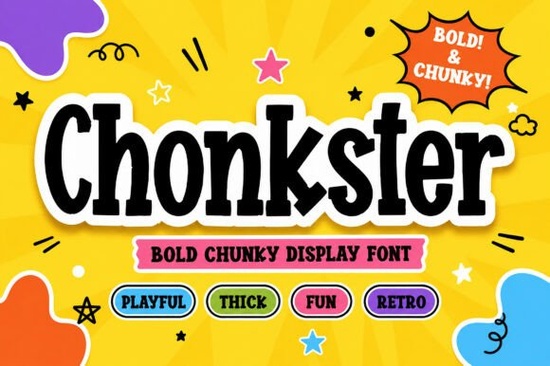
If you're looking for a bold, cheerful display font that stands out on packaging, kids’ branding, or social media graphics, Chonkster Font is a great choice. It’s not overly technical or fussy just thick, friendly letterforms with a playful cartoon energy and subtle retro vibe. Think snack boxes, toy store logos, birthday posters, or merch designs where personality matters more than precision. It’s built to be seen, not studied.
What kind of projects does Chonkster work best for?
Chonkster shines where clarity and charm go hand-in-hand. Its compact shapes and generous stroke weight hold up well at small sizes (like on stickers or tags) and pop even bigger on posters or banners. Designers who’ve used it report success with:
- Kids’ apparel and accessories (think t-shirts, tote bags, enamel pins)
- Snack or candy packaging especially brands leaning into fun, nostalgic, or slightly silly branding
- Print-on-demand greeting cards and party invitations
- Social media posts for small businesses targeting families or creative communities
- Local event flyers (farmers’ markets, library story hours, craft fairs)
It’s not meant for body text or long paragraphs this is a display font, first and foremost. But within that role, it delivers consistency and warmth without feeling generic.
How does Chonkster compare to other playful display fonts?
Like Unibelle, Chonkster has rounded terminals and a gentle bounce but Unibelle leans more elegant and hand-drawn, while Chonkster feels bolder and more grounded. If you love the chunky look but want something with extra whimsy, Candyhorn adds subtle swirls and tapered strokes, making it ideal for confectionery or birthday themes. For holiday-specific energy, Santa Sugar brings festive flair, while Spookify swaps cheer for cheeky spookiness great for Halloween merch or themed events.
None of these are “better” they’re tools for different moods. Chonkster sits comfortably in the middle: friendly but confident, retro but not dated, chunky but still legible.
If you're using it for cutting machines, test a small outline first: the thick strokes mean some very tight corners (like the inside of an uppercase “A” or “R”) may need slight simplification depending on your material and blade. That’s true for most chunky display fonts not a flaw, just something to keep in mind.
Who’s actually using Chonkster right now?
We’ve seen small business owners use it for local bakery signage (“Donut Drop” shop logo), indie toy makers for product labels, and educators designing classroom posters. One craft seller told us they paired Chonkster with a simple sans-serif for contrast and saw a noticeable lift in engagement on Instagram Reels captions. Another used it across a full sticker sheet set (with coordinating icons) and reported repeat customers mentioning how “happy” the typography felt.
It’s also popular among designers building brand kits for clients who want approachable, non-corporate identity especially when the audience includes kids, caregivers, or hobbyists.
Creative Fabrica hosts user-submitted mockups and project previews on the Chonkster Font product page. You’ll find photos of printed tote bags, digital social banners, and even embroidery samples. These aren’t stock images they’re actual uses by real people, which helps gauge how the font behaves in context.
For deeper inspiration, check out how Chonkster Font appears alongside complementary graphics like retro doodles or pastel clipart many designers mix it with vintage-style borders or soft shadows to enhance its playful tone without overwhelming it.
- ✅ Test readability at your intended size especially if printing small on fabric or stickers
- ✅ Pair it thoughtfully: try a clean, neutral sans-serif (like Inter or Montserrat) for supporting text
- ✅ Avoid overloading layouts Chonkster works best as a focal point, not background noise